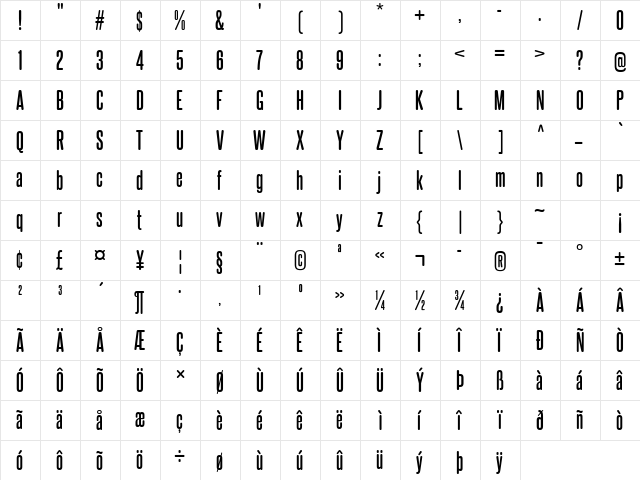
Steelfish Rounded Bold
Design Context for Steelfish Rounded Typeface
Steelfish Rounded uses gentle rounded endings to create a warm, inviting typographic personality — less corporate than geometric sans, more refined than playful display fonts. Its bold stroke weight gives it real presence on the page.
A natural fit for tech startups, health and wellness brands, children's products, and friendly consumer apps.
Font Pairing: Pairs well with a rounded or humanist sans for body copy, maintaining the friendly tone without relying on Steelfish Rounded to carry extended reading.
Pro Tip: Pair Steelfish Rounded with a geometric sans for a balanced system — the rounded softness works as a warm counterpoint to harder-edged companions.